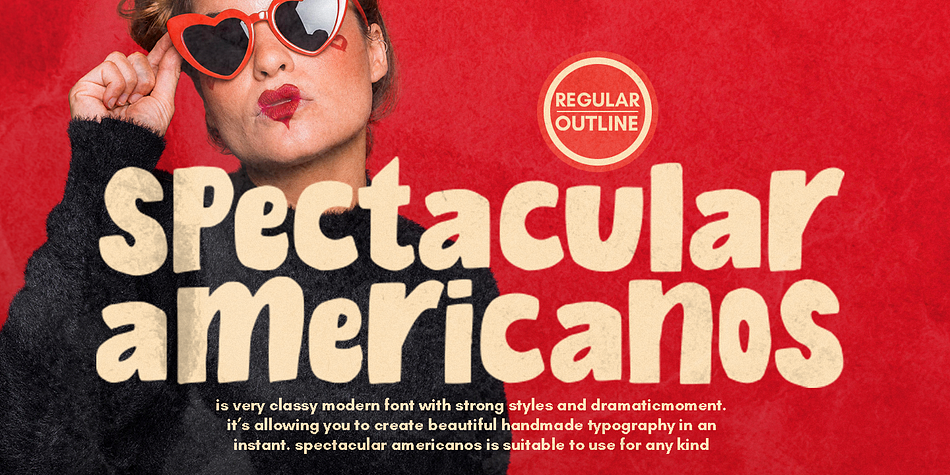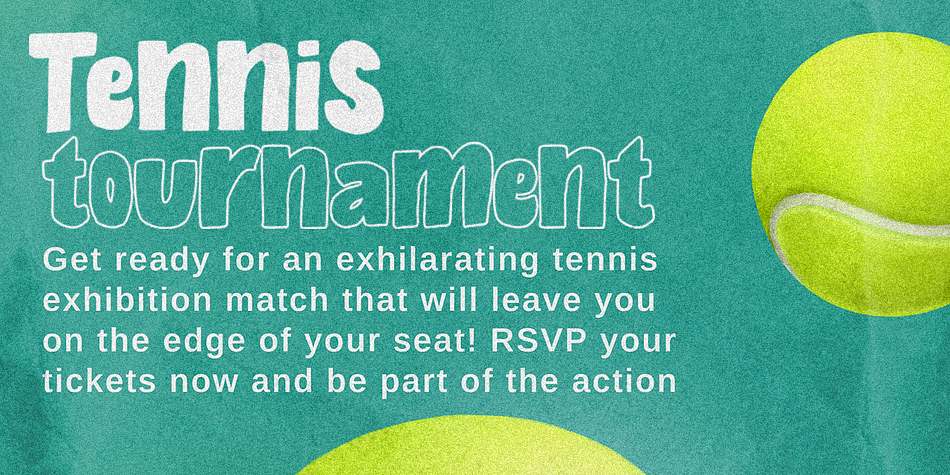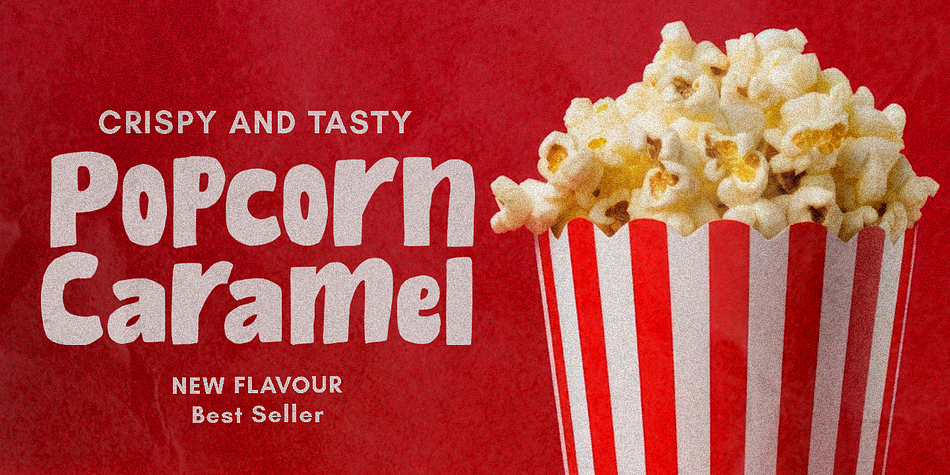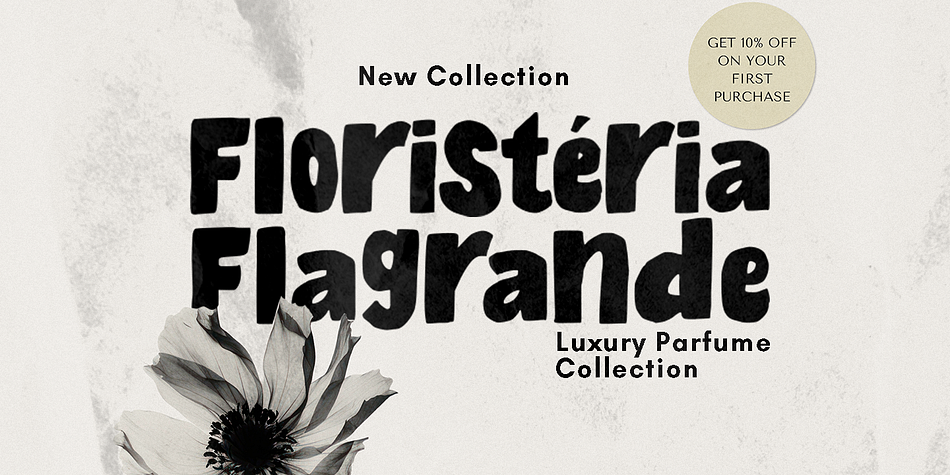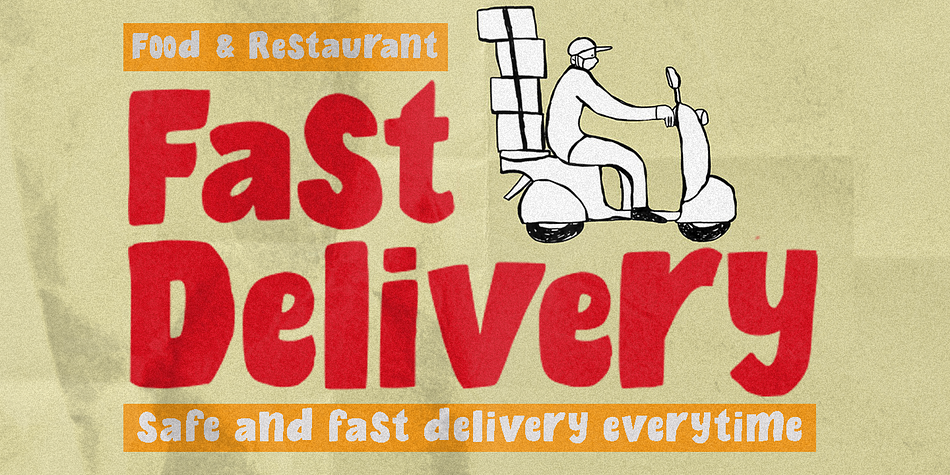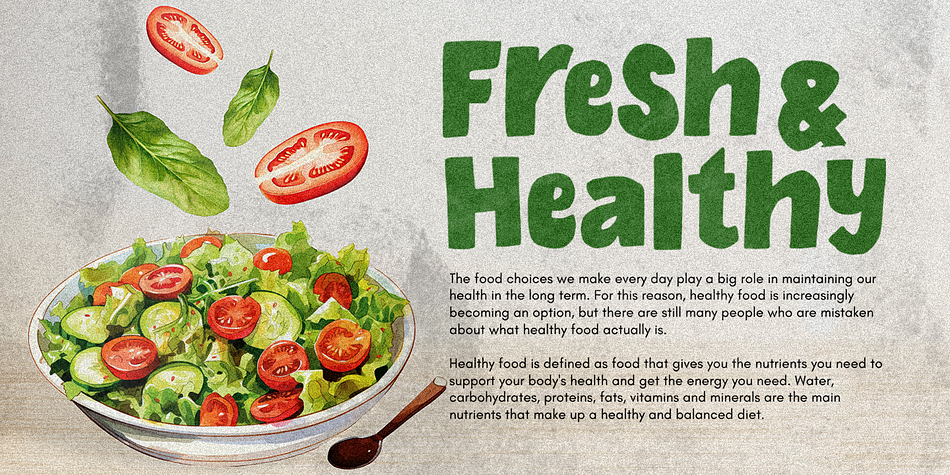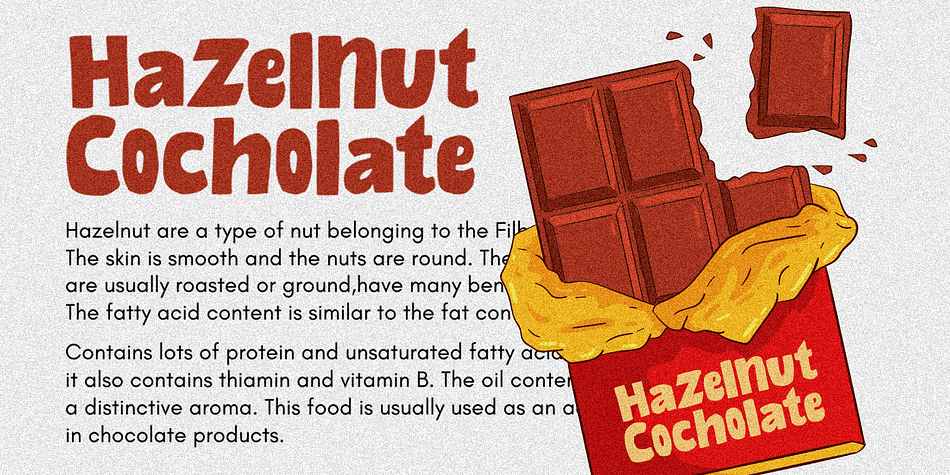
Spectacular Americanos
Spectacular Americanos is a hand drawn and kids font family. This typeface has two styles and was published by Youngtype Studio.
Spectacular Americanos & Spectacular Americanos Outline is a hand brush font made with brushes and ink. This typeface is ideal for use in thick watercolor designs or handwriting styles, such as blog titles, posters, wedding elements, t-shirts, clothing, book covers, business cards, greeting cards, branding, merchandise etc.